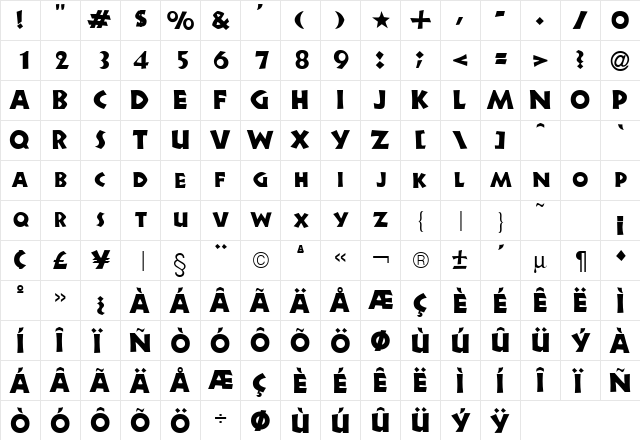
HeartwoodDisplaySCapsSSi Regular Font Preview
HeartwoodDisplaySCapsSSi Regular
Design Context for HeartwoodDisplaySCapsSSi Typeface
HeartwoodDisplaySCapsSSi echoes the hand-painted signage and woodblock typography of the American frontier, with a warm, rugged personality.
A natural fit for craft spirits, ranch branding, rodeo events, and Americana-inspired design work.
Font Pairing: Combine HeartwoodDisplaySCapsSSi with a simple slab or neutral sans — period-accurate companions reinforce the vintage feel without competing for attention.
Pro Tip: Use HeartwoodDisplaySCapsSSi for short, impactful bursts of text — it shines in poster headlines and product names rather than extended copy.